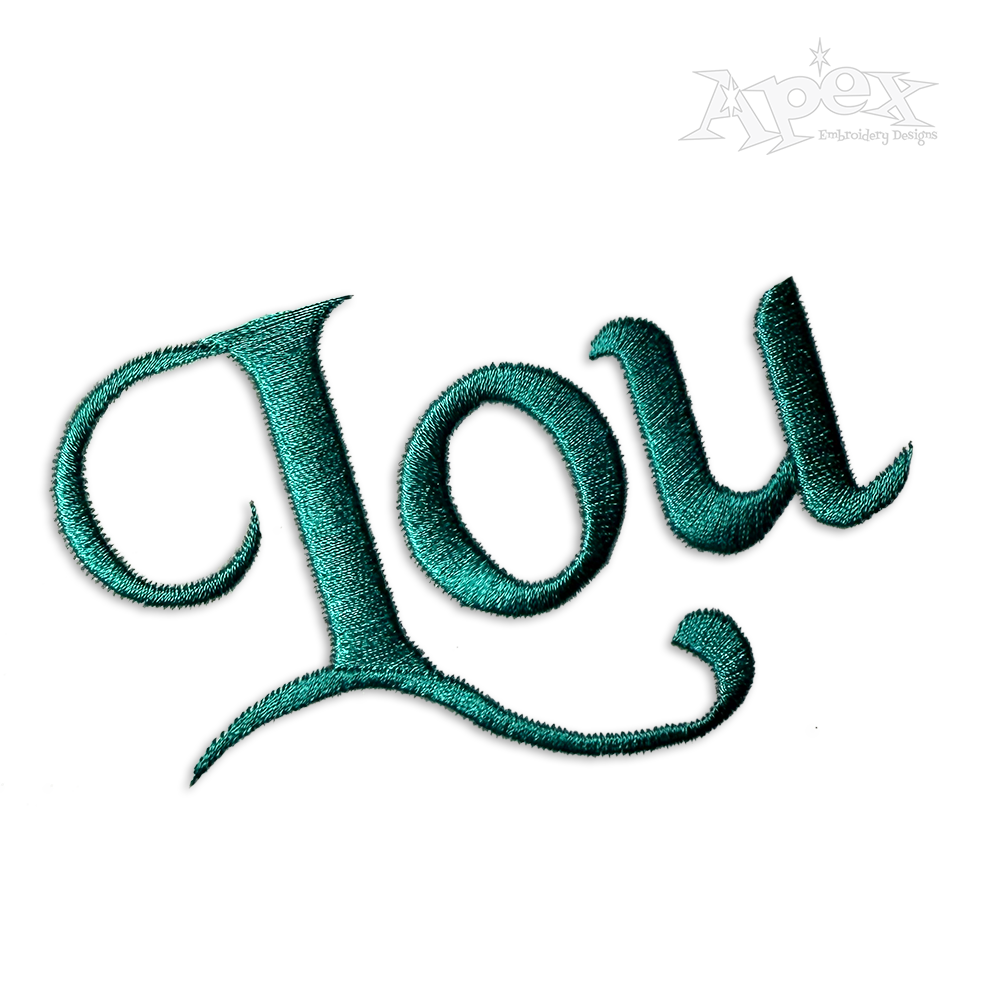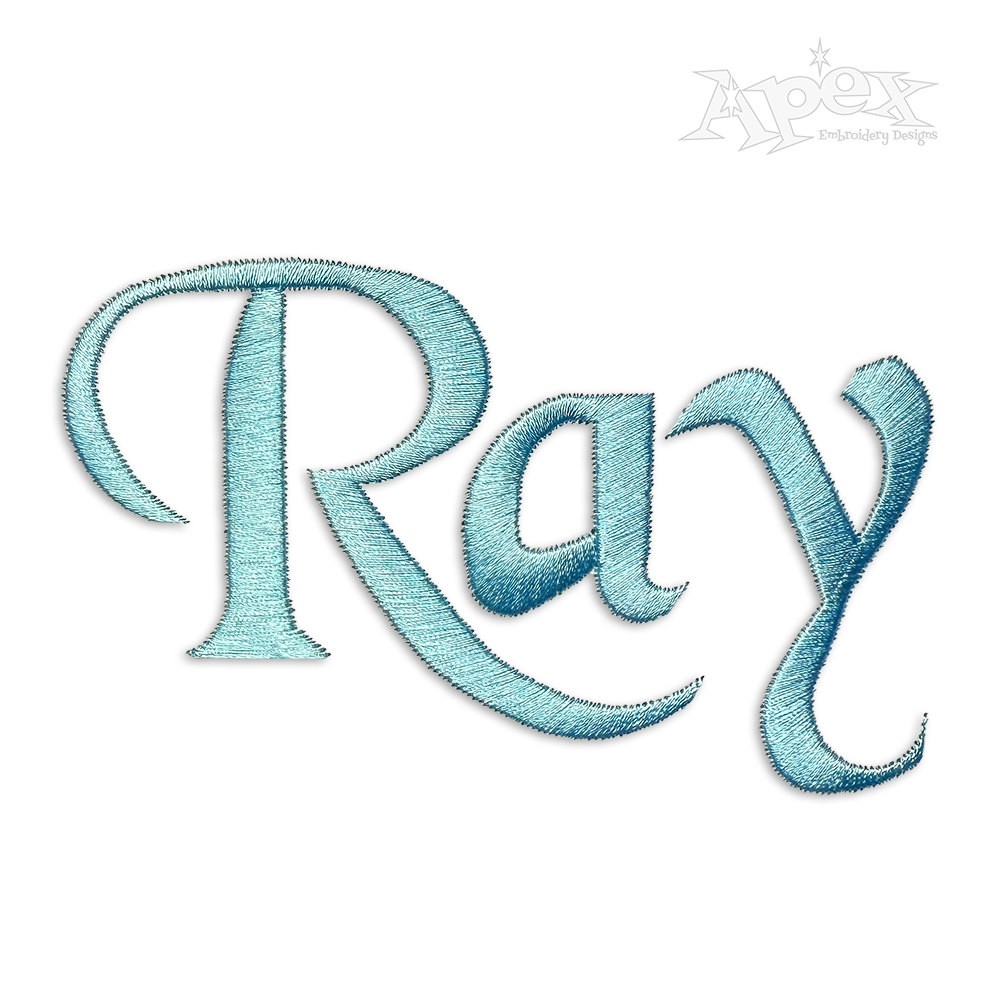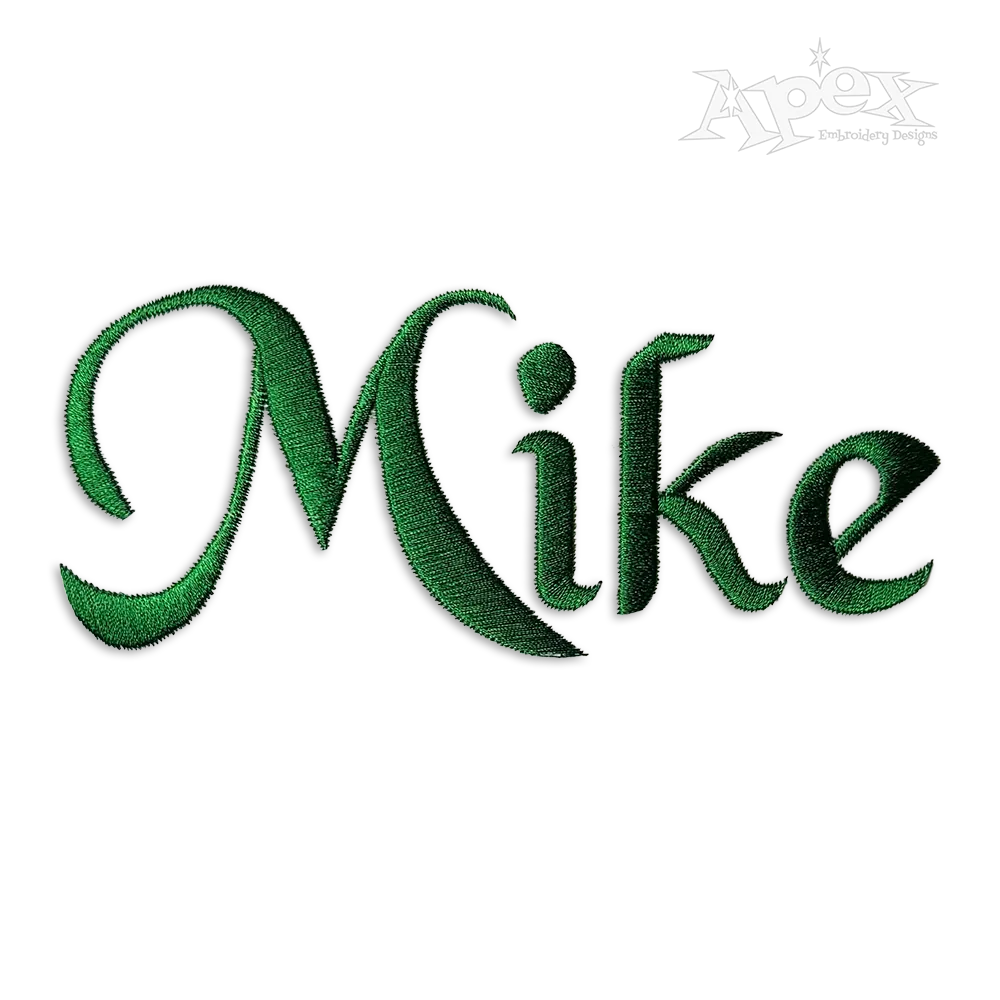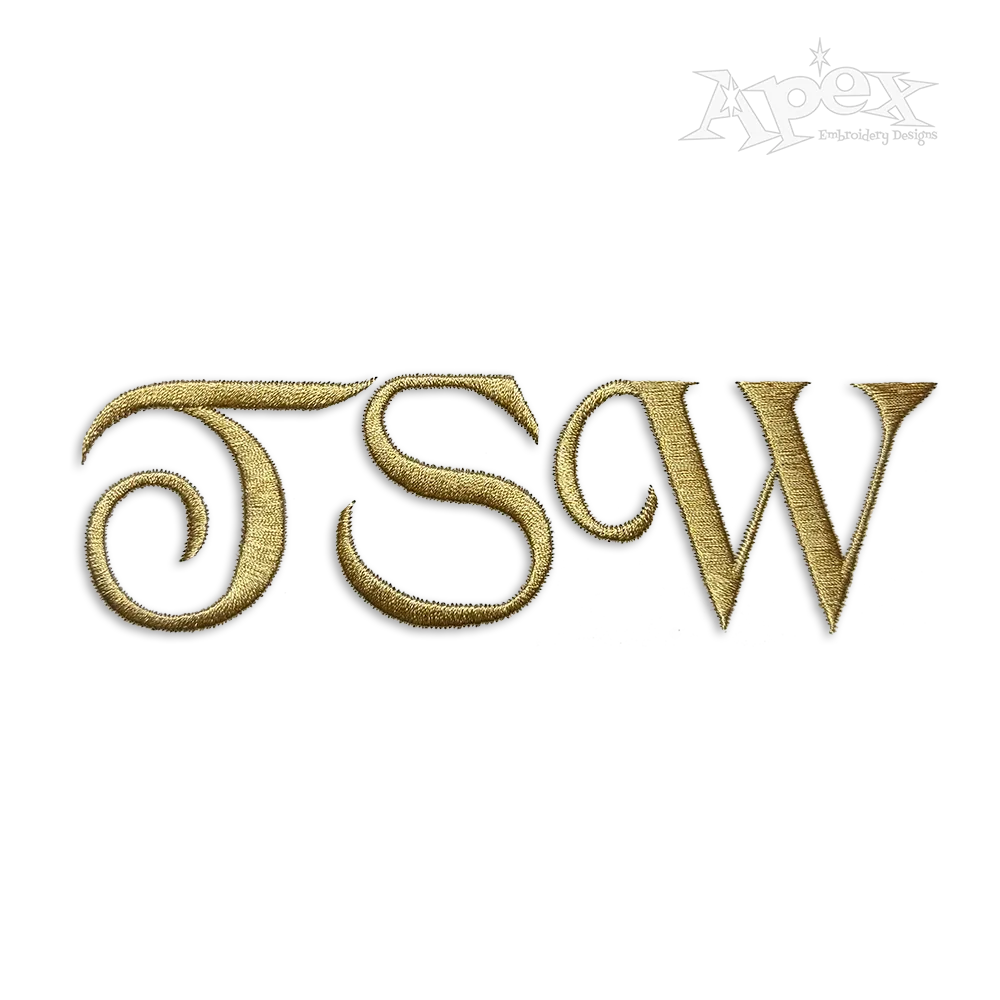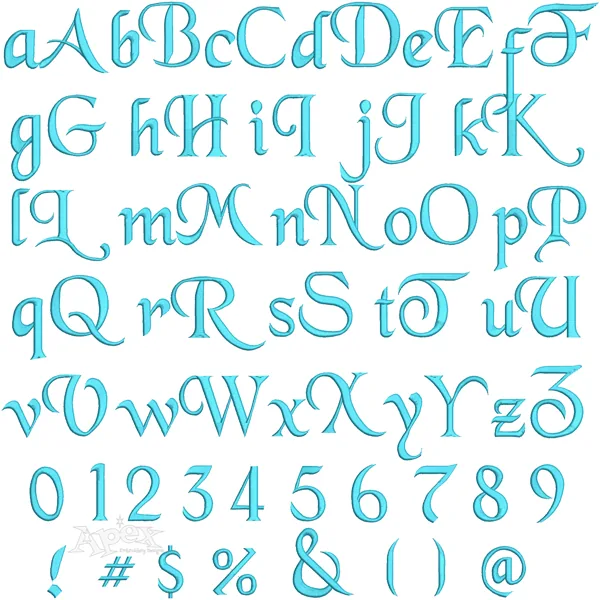
Hanna Embroidery Font
Conceived with an irrepressible sense of joy and warmth, the Hanna Embroidery Font brings an inviting, hand-lettered whimsy to modern machine embroidery. When digitizing this alphabet, our goal was to capture the carefree charm of casual lettering while elevating it with couture-level stitch engineering. Each character possesses an animated balance of soft curves and spirited angles, translating into high-sheen satin stitches that play beautifully with ambient light. It is a celebratory typeface designed to infuse personalized gifting, everyday wardrobe essentials, and heirloom textile projects with sheer delight.
Project Ideas for Hanna Embroidery Font
- Bespoke Nursery & Children's Linens: Stitch playful monograms onto quilted baby blankets, heirloom swaddles, and organic cotton crib skirts.
- Canvas Market Totes & Beach Bags: Personalize heavyweight canvas totes, summer carryalls, and duffle bags with bold, sunny names.
- Boutique Children's Apparel: Accent cozy knit cardigans, denim jackets, sun hats, and birthday celebration rompers with vibrant, tactile lettering.
- Playful Dining & Bar Cart Linens: Add cheerful initials or lighthearted phrases to linen cocktail napkins and casual summer placemats.
- Personalized Loungewear & Resort Wear: Customize matching poolside towels, weekend loungewear sets, and spa wraps with a vibrant, personalized flourish.
- Center-Chest Alignment: The generous 2-inch scale makes this font an instant focal point when centered across sweatshirts, child tees, or baby blankets.
- Diagonal Corner Monogramming: Position single uppercase initials or stacked three-letter monograms at a 45-degree angle on cocktail napkins and tea towels for an effortlessly modern composition.
- Front Pocket & Yoke Accent: Place names or initials just above the breast pocket of denim shirts or across the upper back yoke of light jackets.
- Tote Pocket Borders: Center names across the exterior patch pockets of canvas totes for high-visibility bespoke style.
Hanna Embroidery Font Craft & Letterform Details
True embroidery craftsmanship lives in the hidden geometry beneath the surface. For the Hanna Embroidery Font, we constructed an intricate foundation of directional travel lines and foundational underlay to support each buoyant stroke. This structural architecture prevents fabric sinking and guarantees a smooth, pillowy loft across diverse textiles, from delicate linens to textured waffle weaves.
Every turn in Hanna’s rounded stems and playful counters has been digitized with dynamic angle transitions. Rather than rigid, mechanical satin columns, the stitch paths gently fan and curve to mimic the organic flow of hand-drawn calligraphy. Careful pull-compensation algorithms protect the signature rounded terminals, ensuring every dot, curve, and tail finishes with crisp definition and a polished, radiant edge.